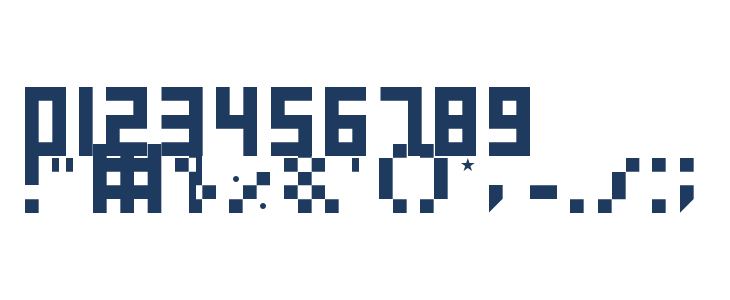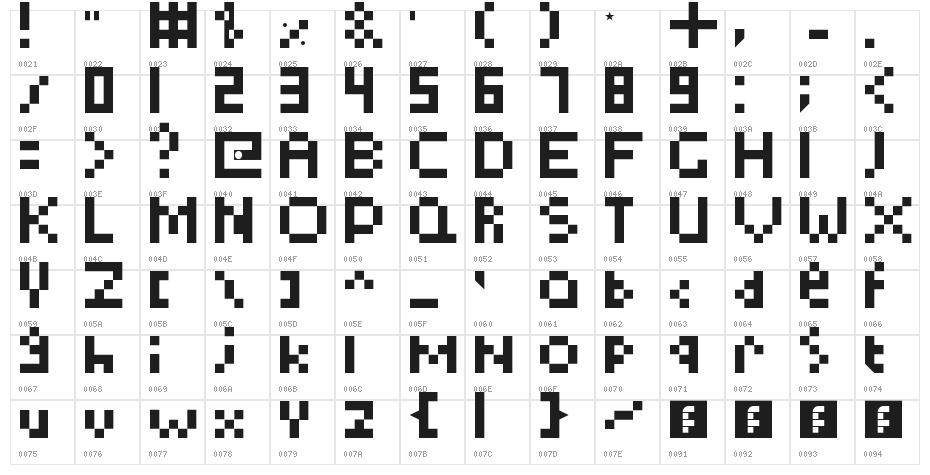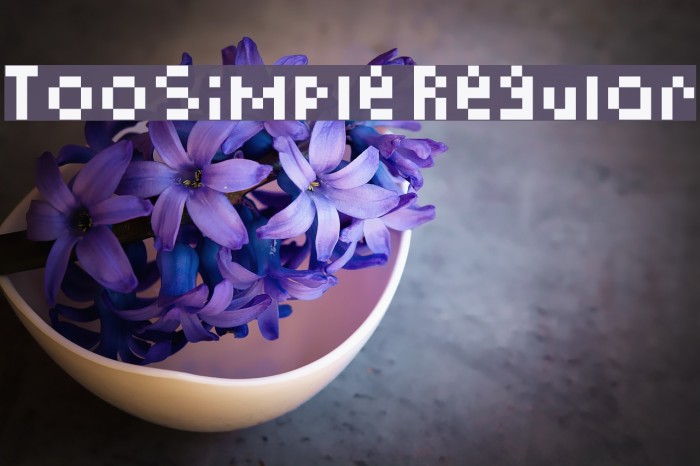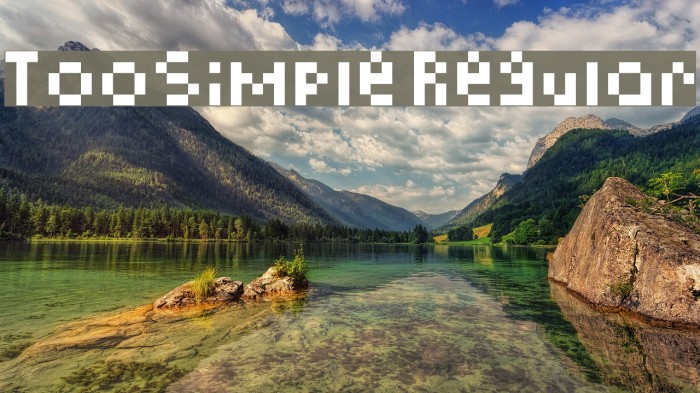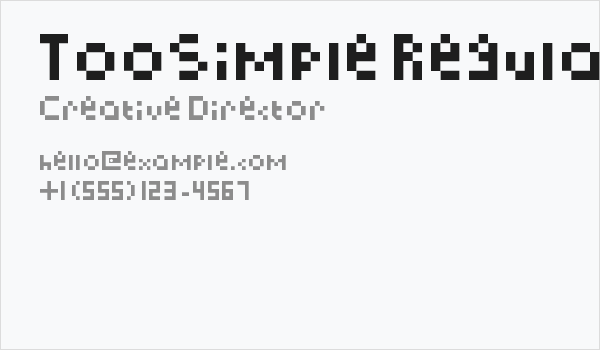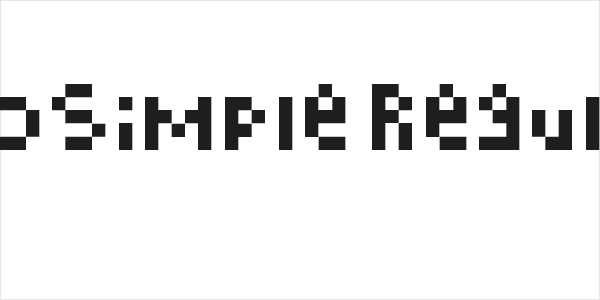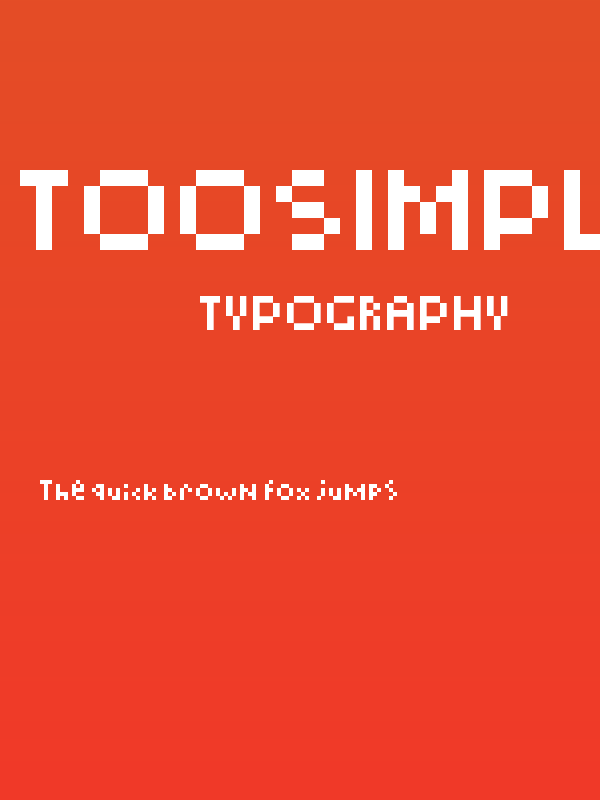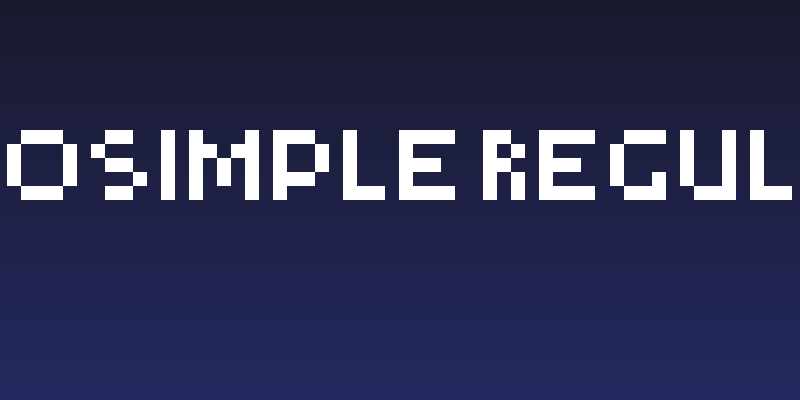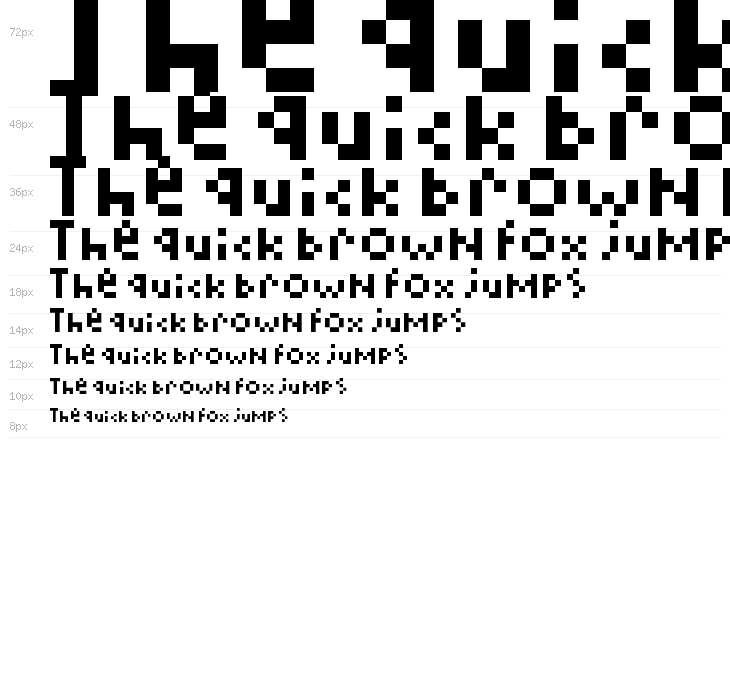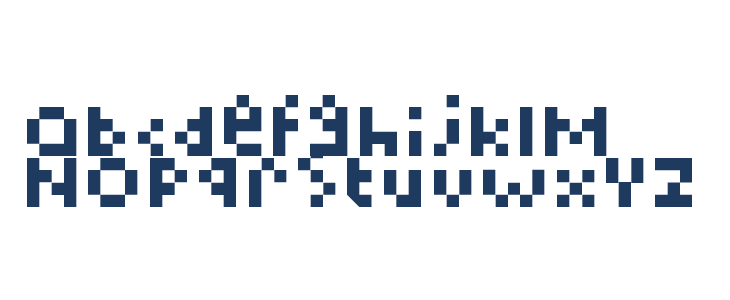
TooSimple Regular Font
TooSimple Regular Description
This font features a pixelated, blocky design reminiscent of early digital or video game typography. Each character is composed of uniform square blocks, giving it a distinctly retro and digital aesthetic. The uppercase and lowercase letters maintain a consistent height, contributing to a monospaced appearance. The numbers and special characters follow the same pixelated style, ensuring uniformity across all glyphs. This design is ideal for projects that aim to evoke nostalgia or a tech-oriented theme, such as video game interfaces, digital art, or retro-themed designs.
| Overall Style | Retro, Digital |
| Use Case | Headlines, Logos, Digital interfaces |
| Proposed Projects | Ideal for video game interfaces, digital art, retro-themed designs, and tech-oriented projects. |